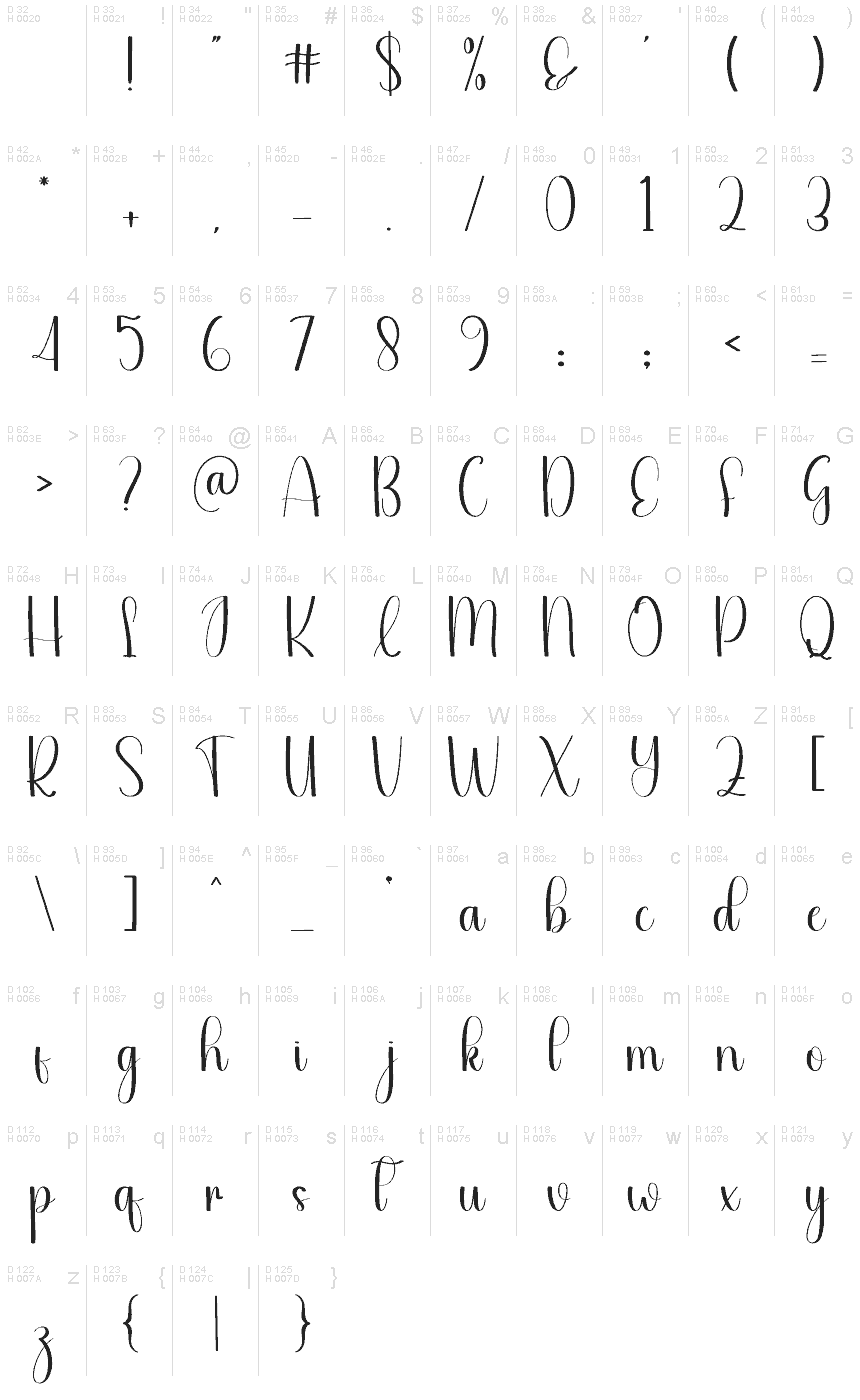
Skatepark
Skatepark font is a calligraphy typeface that seamlessly combines elegance with an expressive flair. Designed by Andi Moz, it embodies an ornate and flowing aesthetic ideal for decorative purposes. Condensed, modern, and free for use, it’s created to make those formal graphics as eye-catching and engaging as possible.
Luxurious designs of all sorts can greatly benefit from this new script font. It has a very high potential for logo design, branding work, invitations (including weddings), product packaging/labels, posters/books covers titles, quotes or messaging boards on websites/blogs/social media accounts especially Instagram posts!